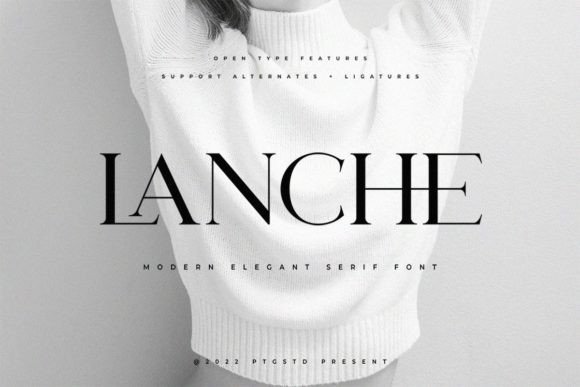
Are you looking for a font that will elevate your designs and make them stand out from the crowd? Look no further than Lanche Font! Created by the talented designers at Pentagonistudio, this modern and stylish serif font is perfect for anyone who wants to add a touch of luxury to their designs.
Whether you're designing a logo, creating graphics for social media, or putting together a presentation, Lanche Font is the perfect choice. Its elegant and sophisticated look will capture the attention of your audience and make your designs unforgettable.
One of the great things about Lanche Font is that it's PUA encoded, which means that you can access all of the amazing glyphs and ligatures with ease. This gives you even more creative freedom and allows you to make your designs truly unique.
But don't just take our word for it - try Lanche Font for yourself and see how it transforms your designs. With its timeless style and versatile applications, it's the perfect font for anyone who wants to make a statement.